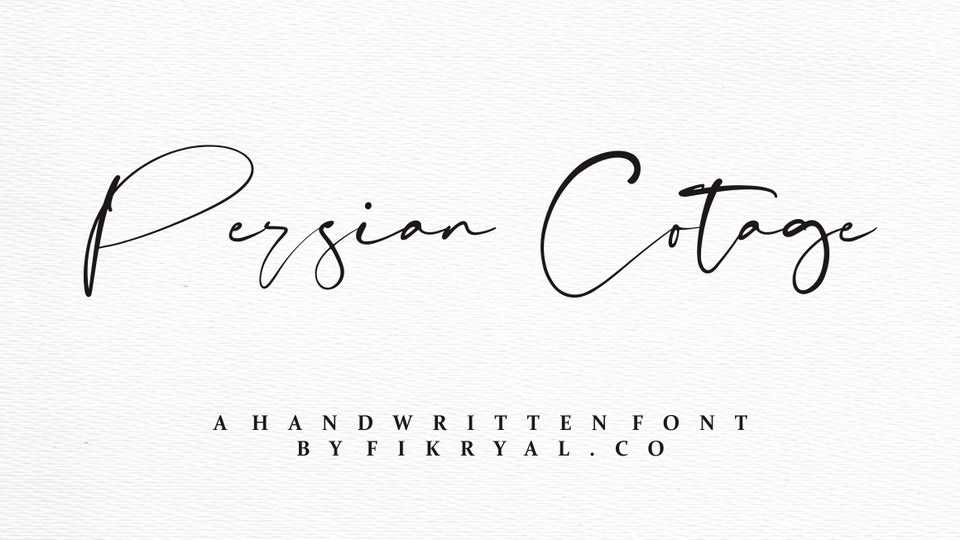
Download Persian Cotage font, a modern and stylish signature style handwritten script. Persian Cotage is perfect for logo, branding, invitation, tittle, wedding designs, social media posts, advertisements label, photography watermark and more.
Designer: Fikry Alif